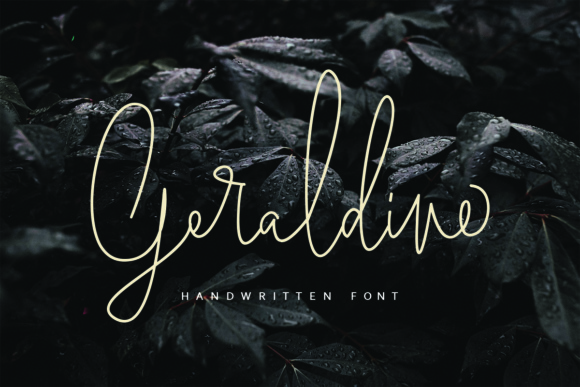
Prepare to be mesmerized by Geraldine, an exquisitely handcrafted handwritten signature font that exudes both elegance and sophistication. Each stroke of this font has been meticulously designed to capture the essence of a sophisticated signature, bringing a touch of refinement to your creative endeavors. From branding to captivating designs, Geraldine is your go-to font for making a lasting impression.
Immerse yourself in the world of Geraldine and discover its versatility. Whether you're crafting a luxurious brand identity, designing elegant invitations, or adding a touch of charm to your digital creations, Geraldine effortlessly adapts to your vision. Its ability to seamlessly blend with various styles and aesthetics makes it a must-have for designers seeking to elevate their work.
With Geraldine at your fingertips, you'll embark on a creative journey where your imagination takes center stage. Express your individuality through stunning typography that captivates and inspires. Geraldine is not just a font; it's an extension of your creativity, empowering you to leave an unforgettable mark on the world.
As you explore the depths of this font, you'll uncover a treasure trove of possibilities. From heartfelt love letters to eye-catching social media posts, Geraldine transforms ordinary words into captivating expressions. Its ability to evoke emotions and create a lasting connection with your audience is truly remarkable.
Don't let this extraordinary font pass you by. Embrace the allure of Geraldine today and unlock a world of creative possibilities. Let your designs shine with an unparalleled elegance that will leave a lasting impression. Immerse yourself in the world of Geraldine and witness the magic it brings to your creative endeavors.